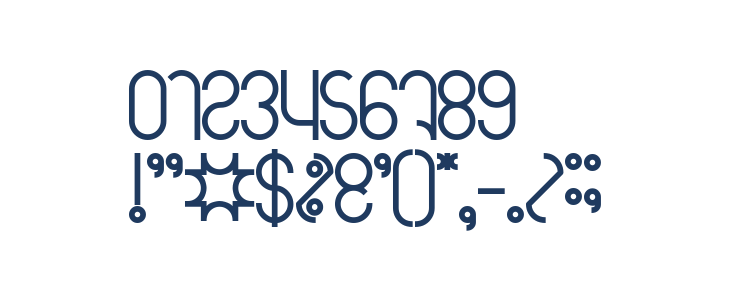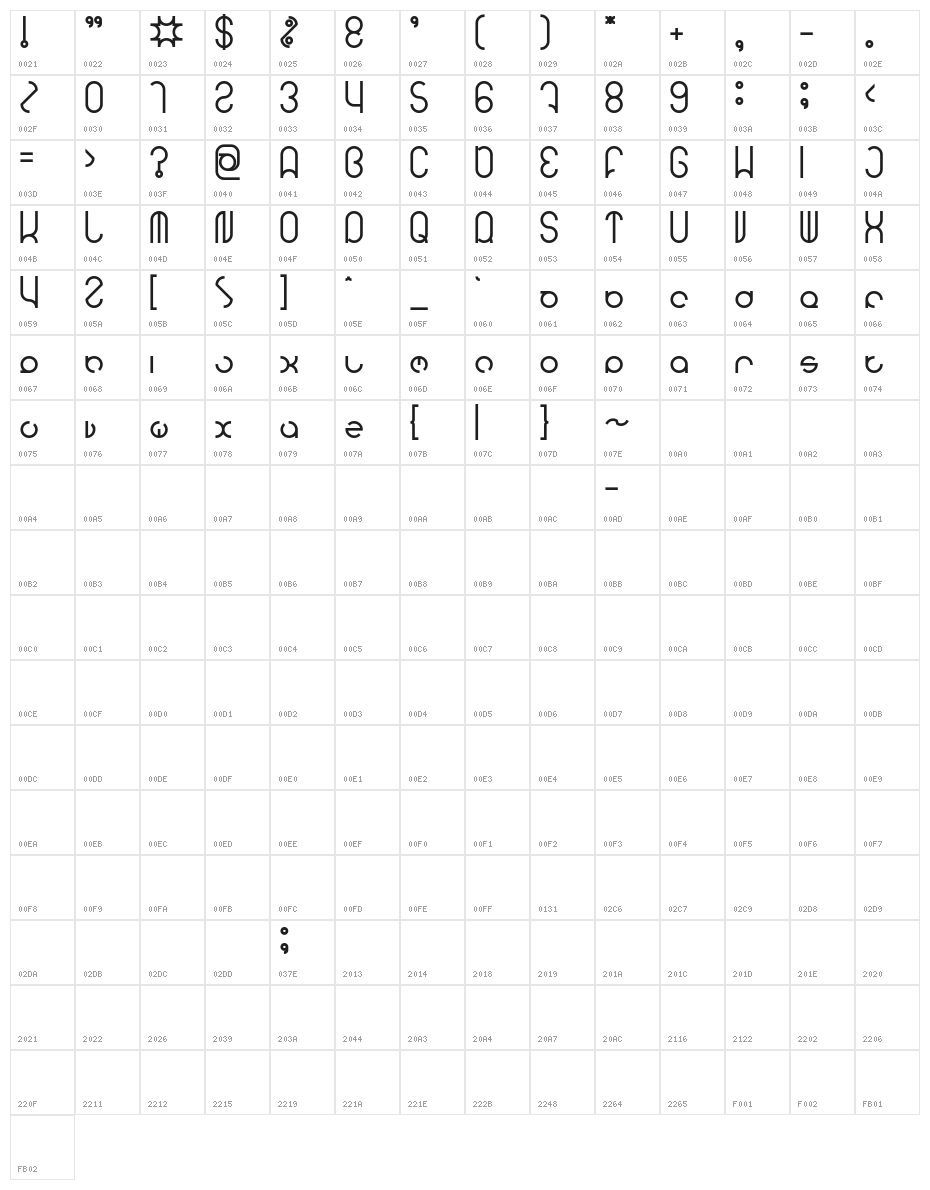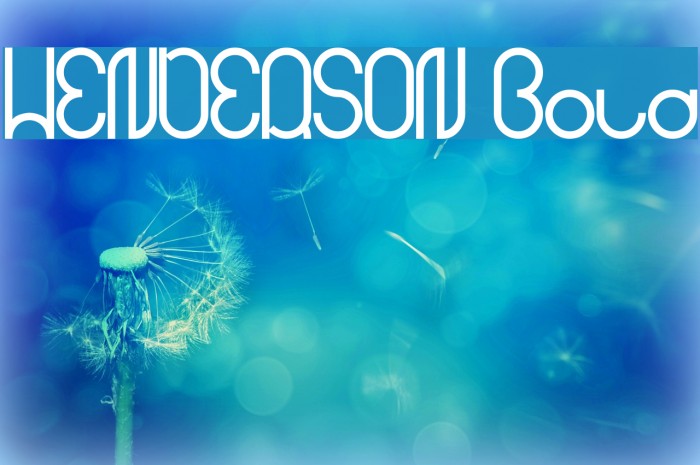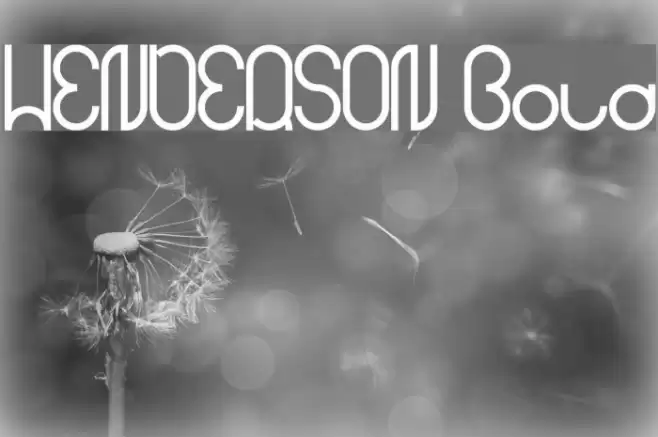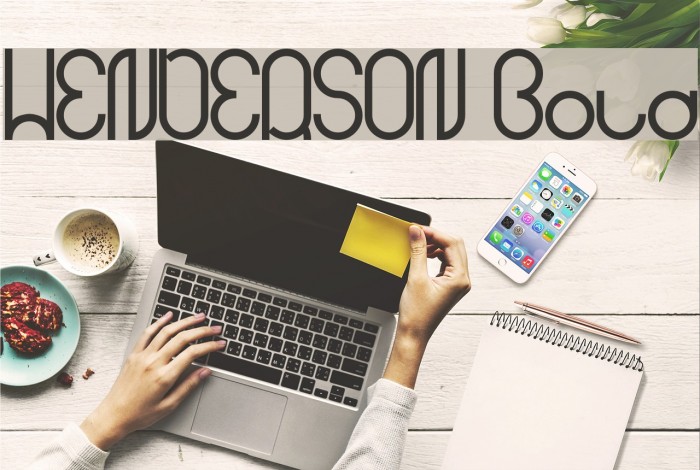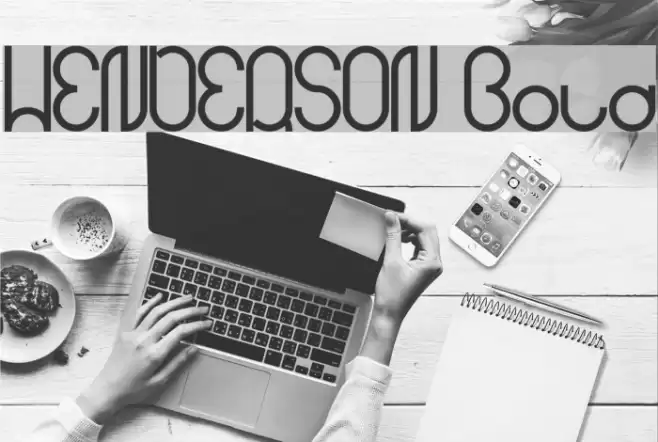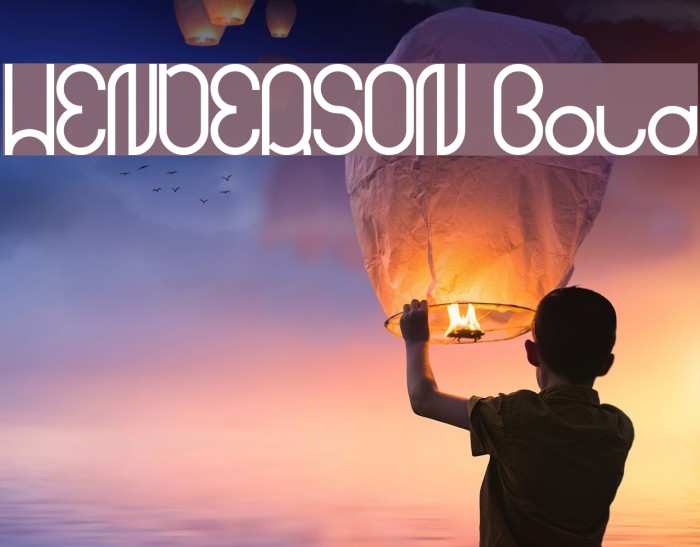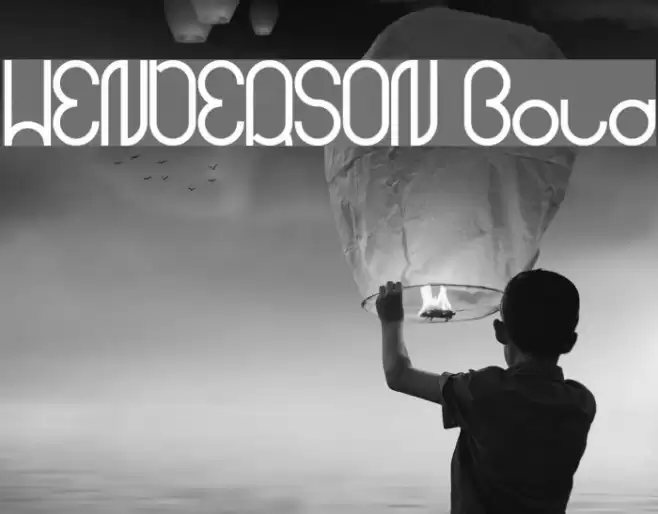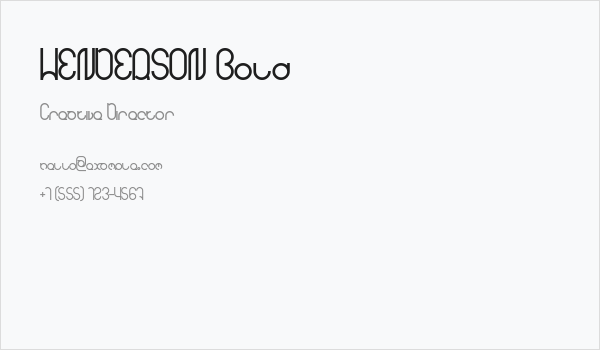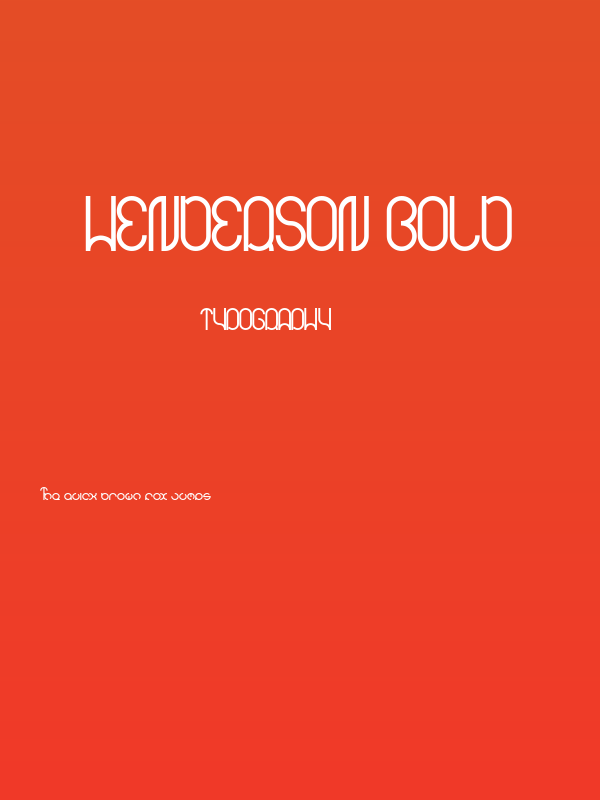
HENDERSON Bold Font
HENDERSON Bold Description
This font features a bold, geometric design with a modern and futuristic aesthetic. The characters are constructed with clean lines and circular elements, creating a unique and eye-catching appearance. The uppercase and lowercase letters share a consistent style, with rounded edges and a uniform thickness throughout. The numbers and special characters maintain the same geometric theme, ensuring a cohesive look across all glyphs. This font is ideal for projects that require a strong visual impact and a contemporary feel.